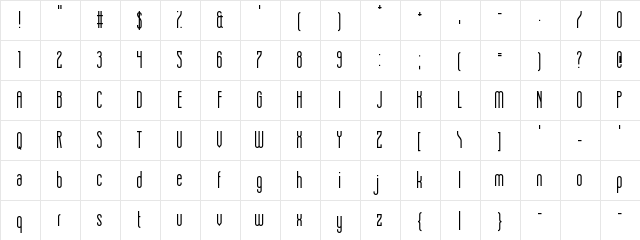
Hot Thin Roof Regular
Design Context for Hot Thin Roof Typeface
Hot Thin Roof is a composed and adaptable typeface that performs quietly and consistently across a wide range of design contexts. Its slender proportions lend an understated elegance to any composition.
Pro Tip: Use Hot Thin Roof in both headline and body roles to test its range before committing to a single application.